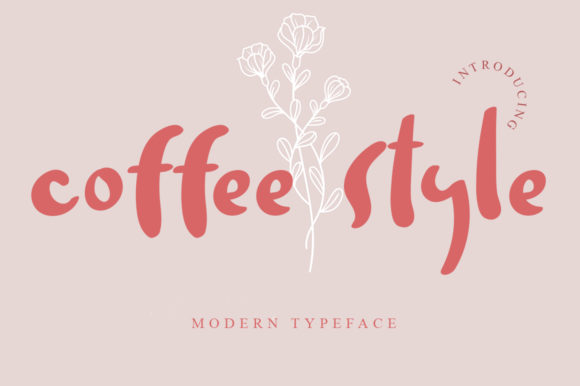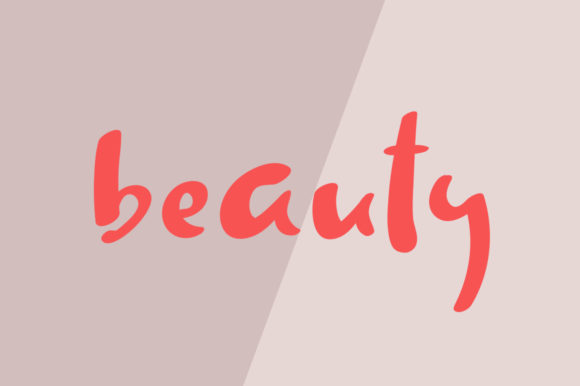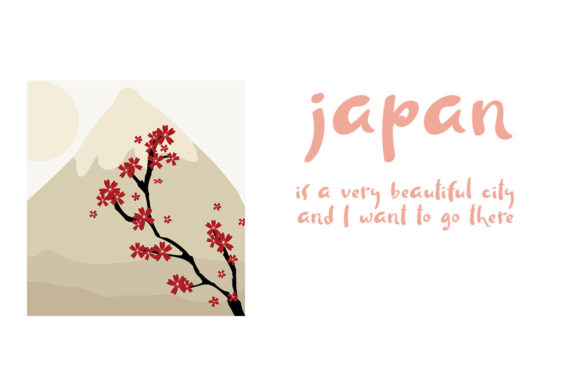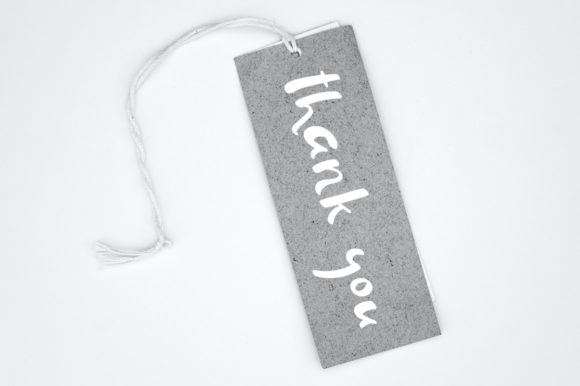
Coffee Style Font
About Coffee Style Font
Coffee Style is a chic, trendy script font that emanates sophistication and elegance. Its stylish alternates and ligatures make this font the perfect match for any project.